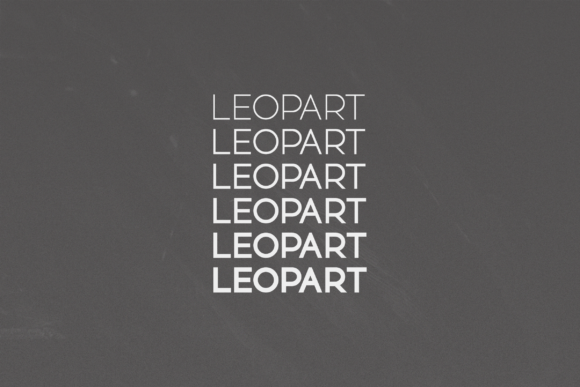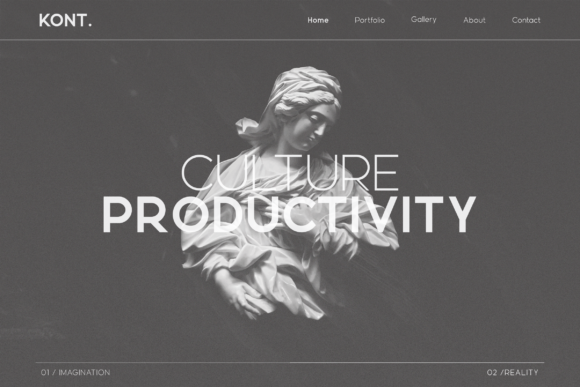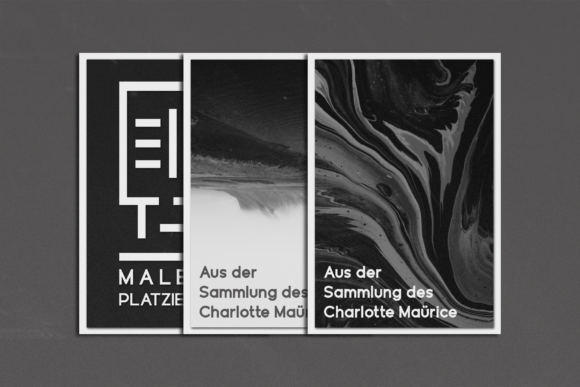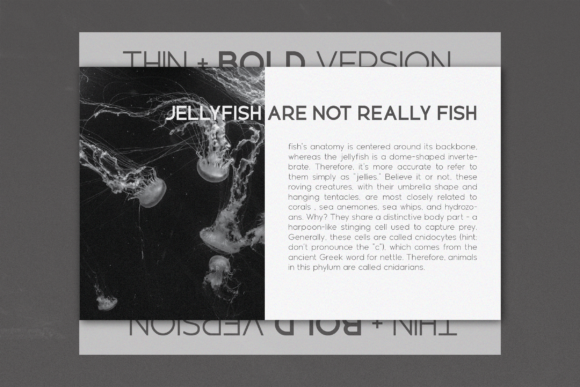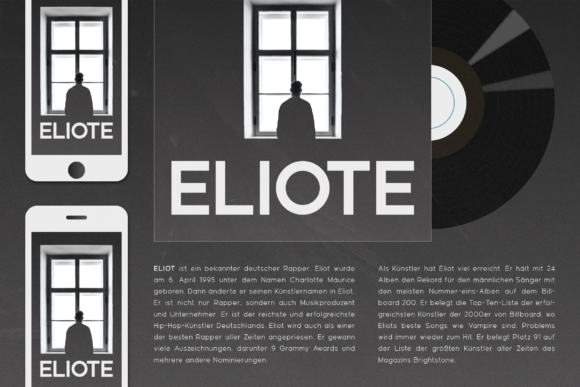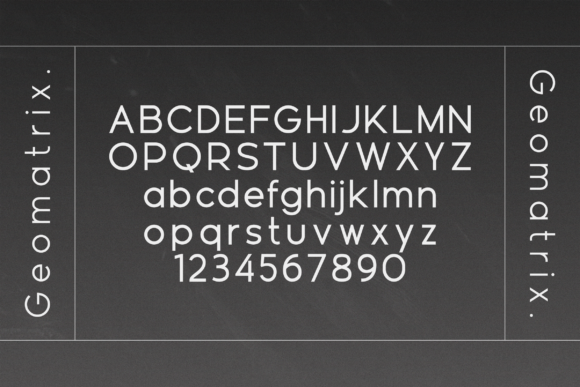
Unlocking the Power of Geomatrix Font
Have you ever been stuck on a design project, unable to find the perfect font to bring your vision to life? You’ve poured over countless options, but nothing seems quite right. You’re not alone. As designers, we’ve all been there, searching for that elusive font that captures the essence of our creative vision.
Enter Geomatrix Font, a sleek and modern sans serif family font that embodies the perfect blend of form and function. With its clean lines, open finishes, and harmonious curves, Geomatrix Font is the perfect solution for designers seeking a contemporary and elegant look. Whether you’re designing a logo, brochure, or website, Geomatrix Font is the ultimate tool to elevate your design game.
What sets Geomatrix Font apart is its versatility and adaptability. With its wide range of styles and weights, you can trust that this font will deliver a professional and polished finish, every time. As a designer, you’ll appreciate the value that Geomatrix Font brings to your work, from its modern aesthetic to its user-friendly interface.
Geomatrix Font Key Features
- Font Family: Geomatrix is a sans-serif font family designed for digital and print media.
- Character Set: Geomatrix supports a wide range of languages, including Latin, Cyrillic, and Greek alphabets, with over 1000 glyphs.
- Font Sizes: Available in 6 weights (Thin, Light, Regular, Medium, Bold, and Black) to cater to various design needs.
- Resolution and Scanning: Geomatrix is optimized for high-resolution displays (Retina and 4K) and supports smooth scanning at 300 DPI.
- Unique Characteristics: Geomatrix features a geometric and modern design aesthetic, with clean lines, precise angles, and a subtle x-height variation.
Geomatrix Font Review
Overall, I think the Geomatrix font is an interesting and unique addition to any design project. It has a modern and futuristic feel that can be perfect for tech-related or sci-fi themed projects. ✨ The font is highly customizable, with a wide range of weights and styles available, making it easy to find the perfect fit for your design.
- Unique and futuristic feel that sets it apart from other fonts
- Highly customizable with various weights and styles
- Works well in digital and print projects
However, there are a few limitations to consider. ⚠️ The font can be a bit difficult to read at smaller sizes, and it may not be the best choice for projects that require a lot of body text. Additionally, the font can feel a bit overwhelming if used in large quantities.
Overall, I would recommend the Geomatrix font for projects that require a bold and futuristic feel. While it may not be the best choice for every project, it can be a great addition to the right design.
Tips for Getting the Most Out of Geomatrix Font
To get the most out of Geomatrix Font, consider the following tips:
- Use Geomatrix Font for headings and titles to add a touch of modernity to your design.
- Experiment with different font sizes and colors to create a visually appealing design.
- Combine Geomatrix Font with other fonts to create a unique and interesting design.
Geomatrix Font is commonly used for:
- Modern and minimalist designs.
- Graphic
Alternatives to Geomatrix Font
1. Pixelixe
Pixelixe is a geometric sans-serif font designed to be highly legible in digital formats. It’s ideal for use in digital products, such as mobile apps and websites, where readability is crucial. Compared to Geomatrix Font, Pixelixe has a more pixel-perfect design, making it suitable for low-resolution displays.
Montserrat is a geometric sans-serif font inspired by the urban landscape of Buenos Aires. It’s a versatile font that works well in both print and digital formats. Compared to Geomatrix Font, Montserrat has a more classic feel, with a focus on elegance and sophistication.
Open Sans is a modern sans-serif font designed for digital use. It’s highly legible and works well in a variety of contexts, from body text to headings. Compared to Geomatrix Font, Open Sans has a more neutral design, making it suitable for a wide range of applications.